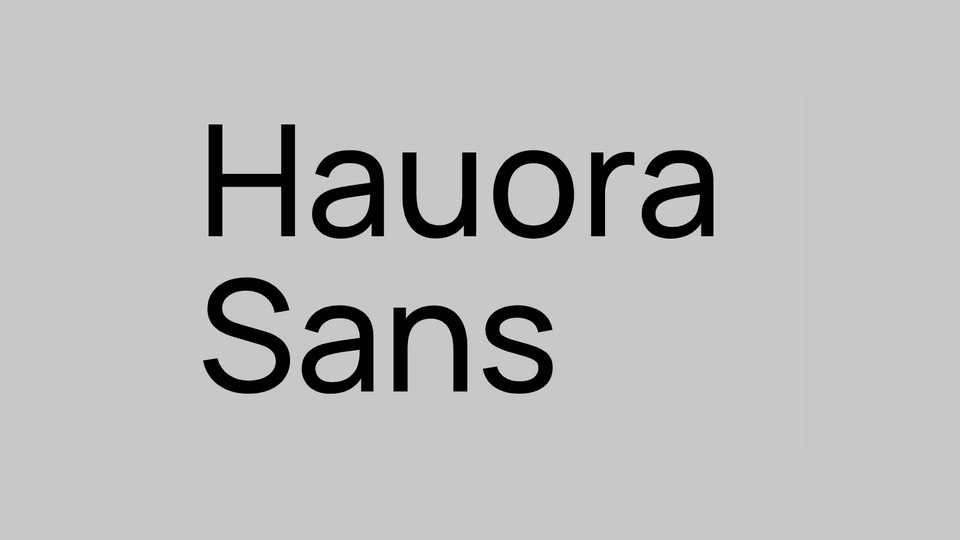
Download Hauora typeface, a semi-condensed, clean, minimal neo-grotesque sans serif font family. Hauora comes as variable font + 7 legacy weights, packed with OpenType features and supports most of Latin and Cyrillic languages.
Designer: WCYS & Co.